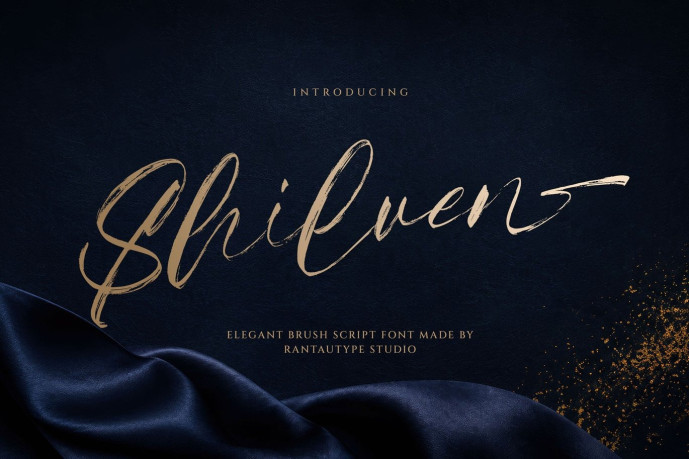
Shilven Font
Designer: RantautypeStudio
Shilven Font is an elegant brush typeface that combines grace and luxury. Shilven is the ideal choice for any creative endeavor, from creating modern lifestyle designs such as logos, headlines, covers, branding, displays and magazines, social media posts, advertisements, printed quotes, product packaging, corporate branding, product design, labels, photography, watermarks, special events, and any other project.